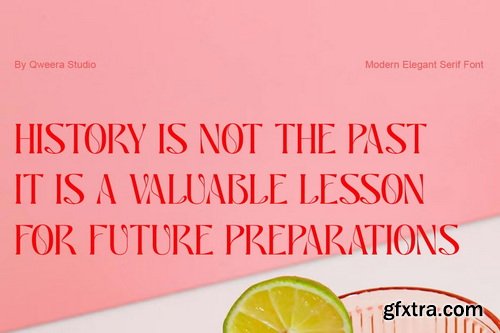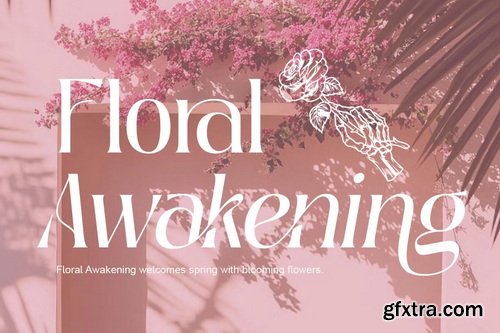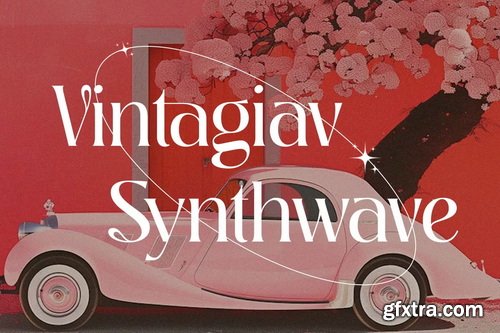
Deranie is a refined serif typeface that blends contemporary elegance with timeless sophistication. Featuring both Regular and Italic styles with exquisite stylistic ligatures and alternates, this font is meticulously crafted for premium branding, luxury logos, high-end packaging, and editorial designs that demand both beauty and functionality. With its clean lines and graceful curves, Deranie delivers exceptional versatility for brands seeking both refinement and impact. The carefully designed ligatures and alternates enable seamless typographic harmony, perfect for creating distinctive visual identities.